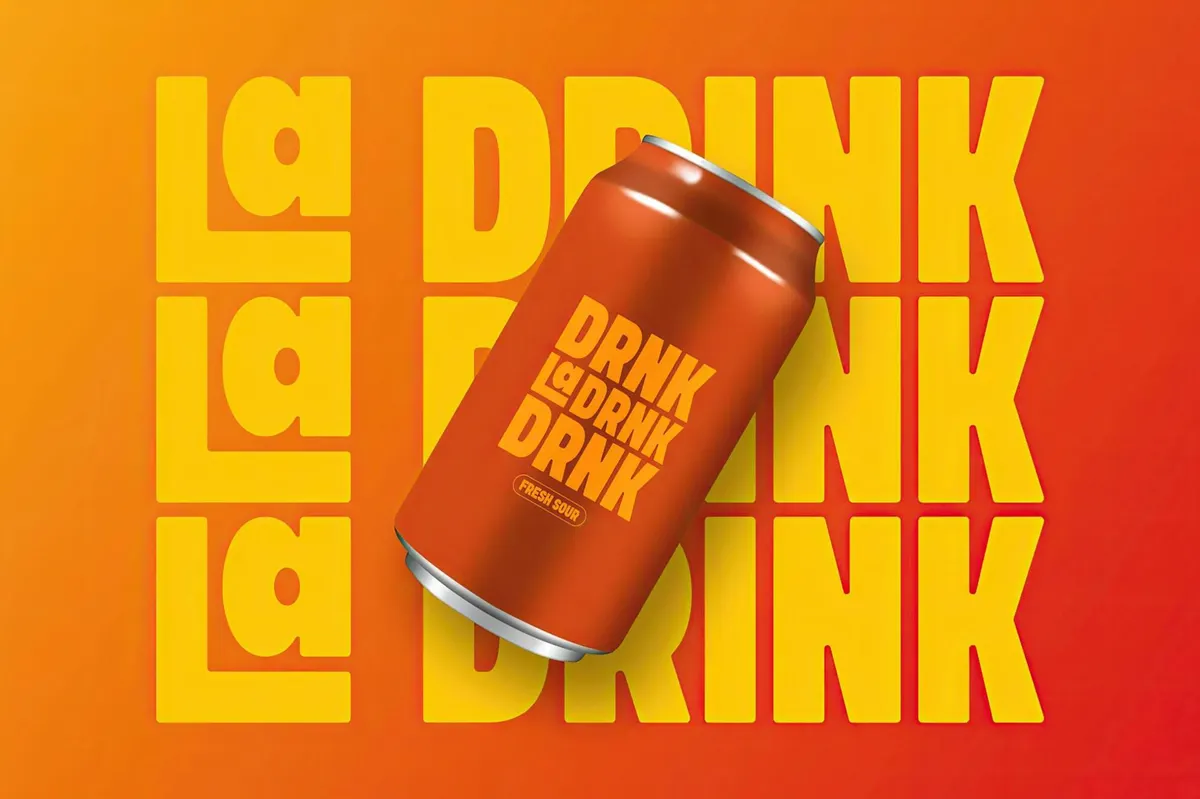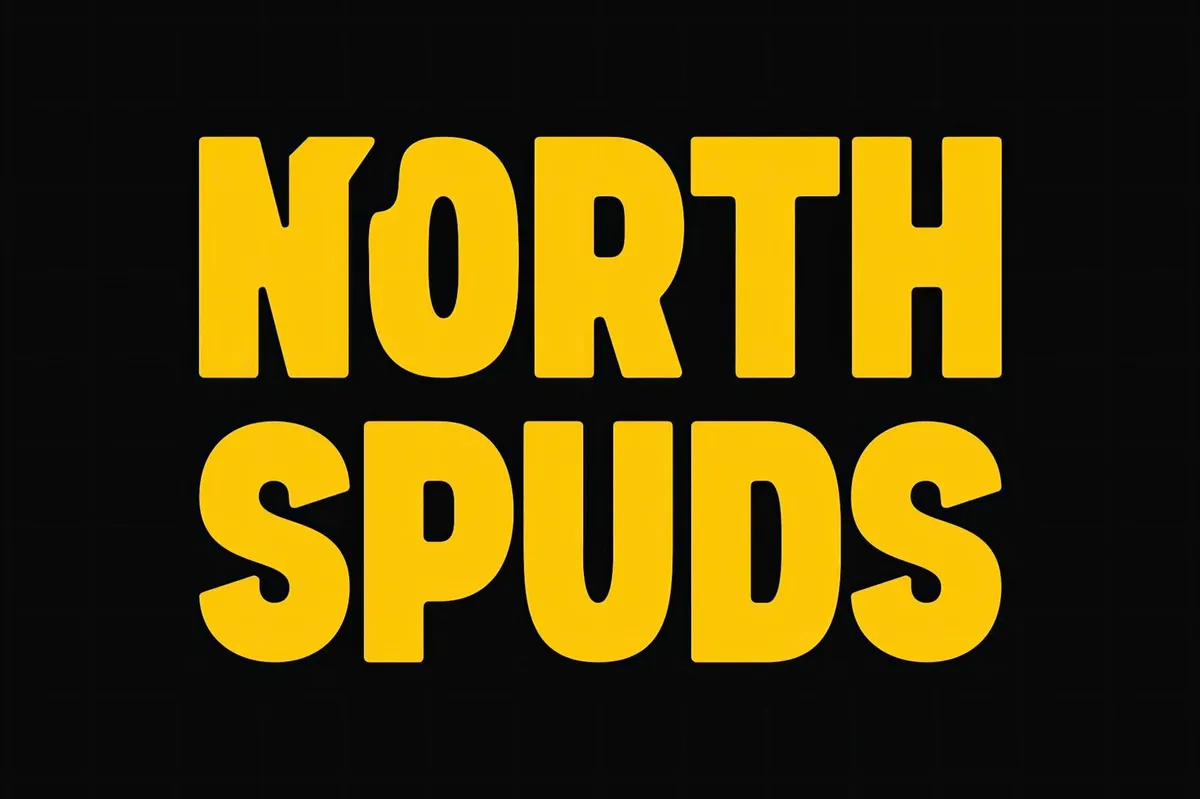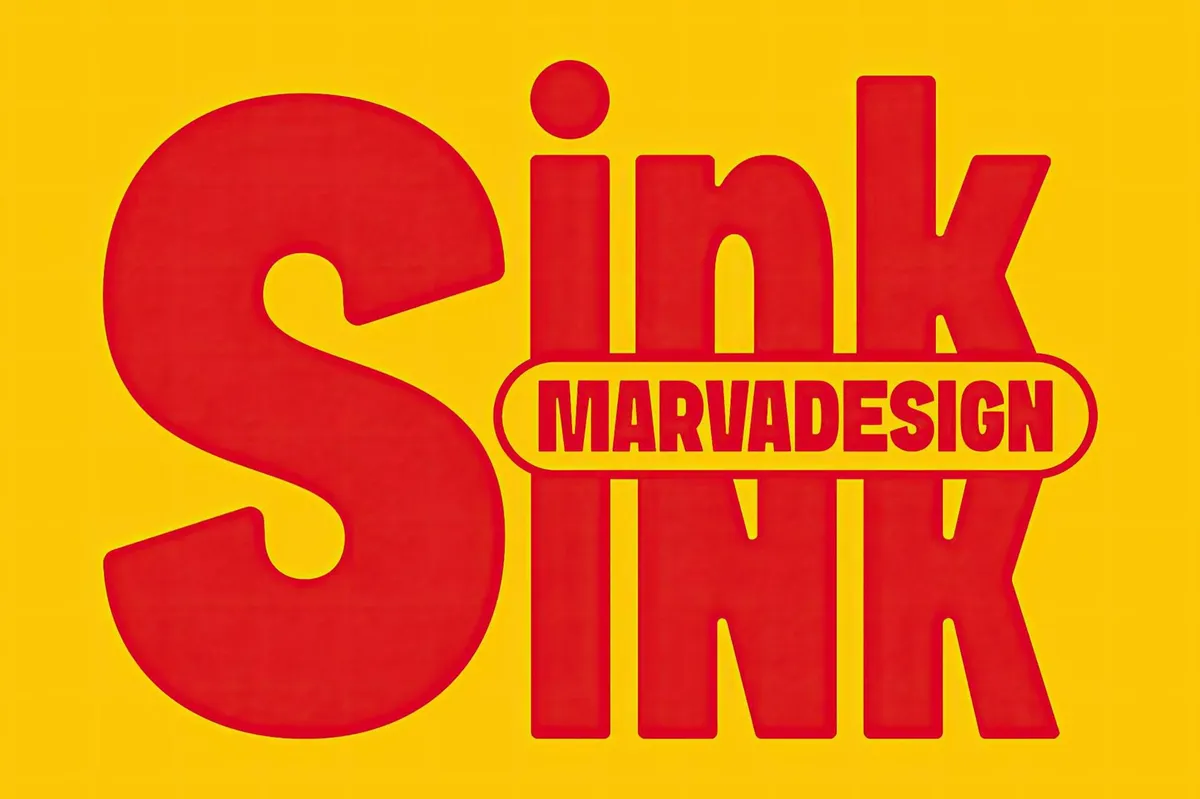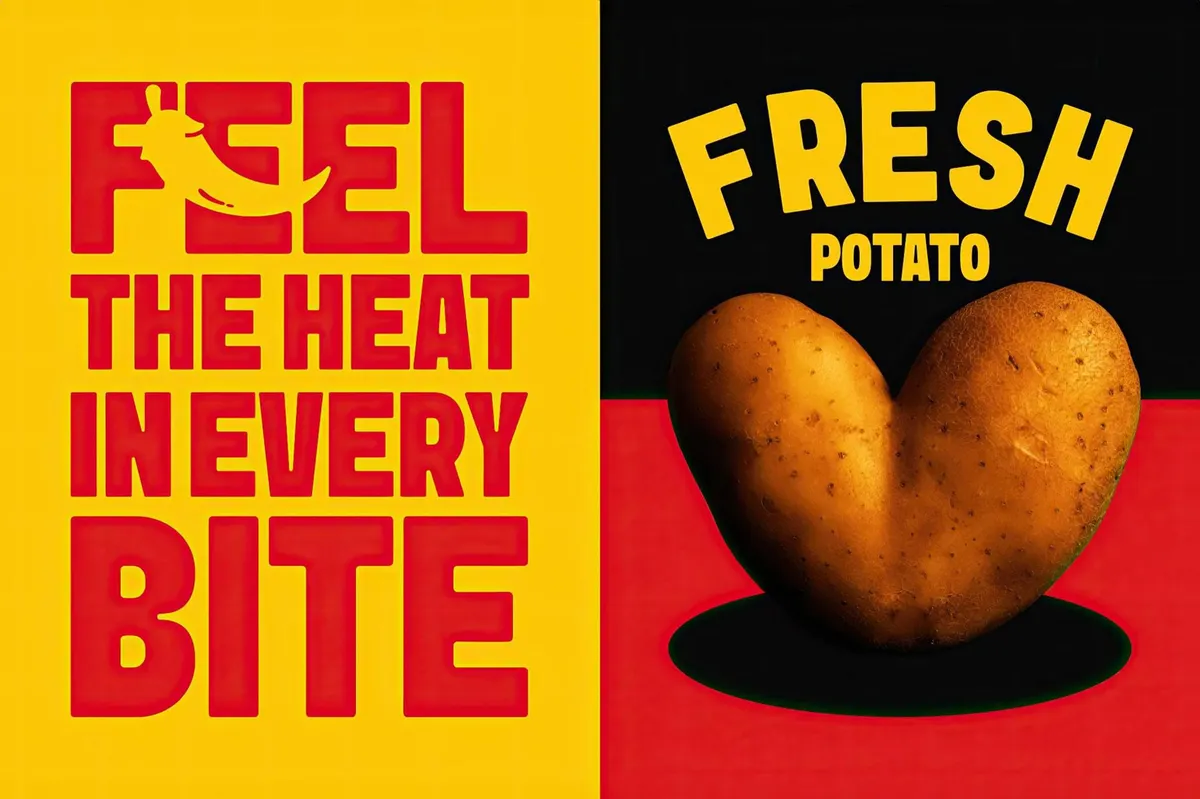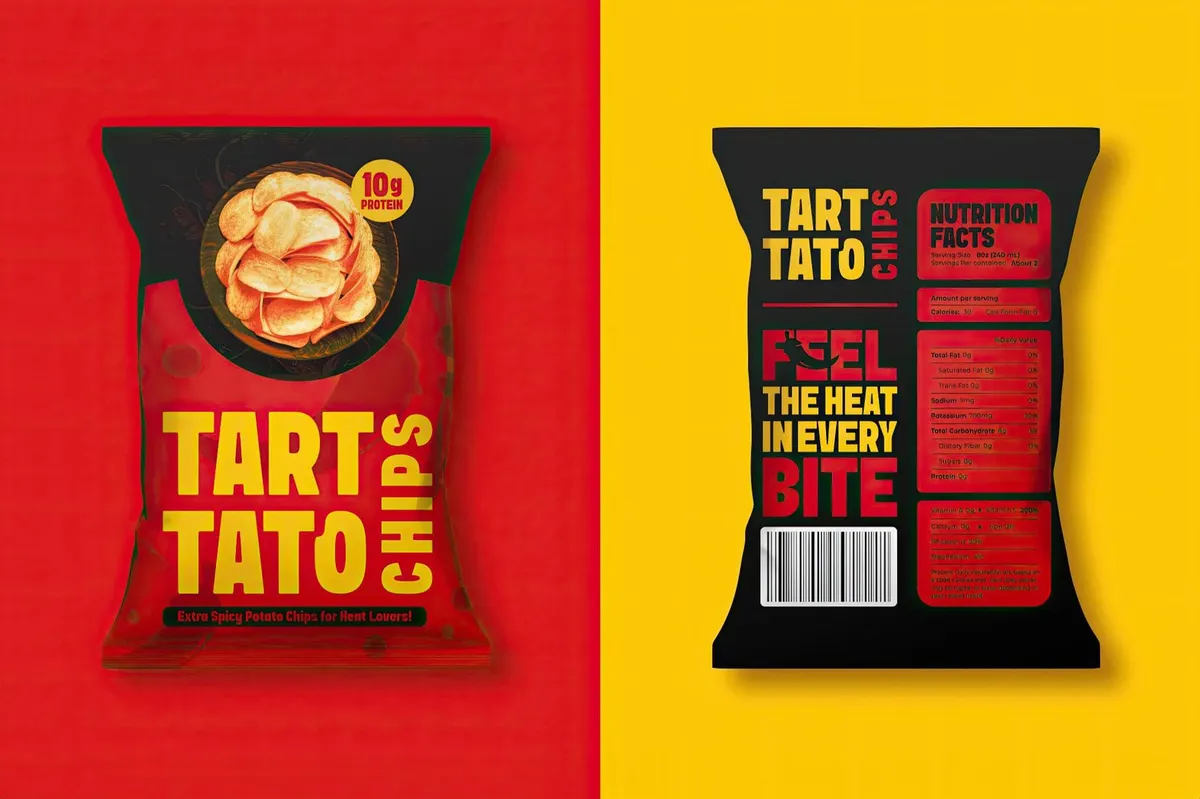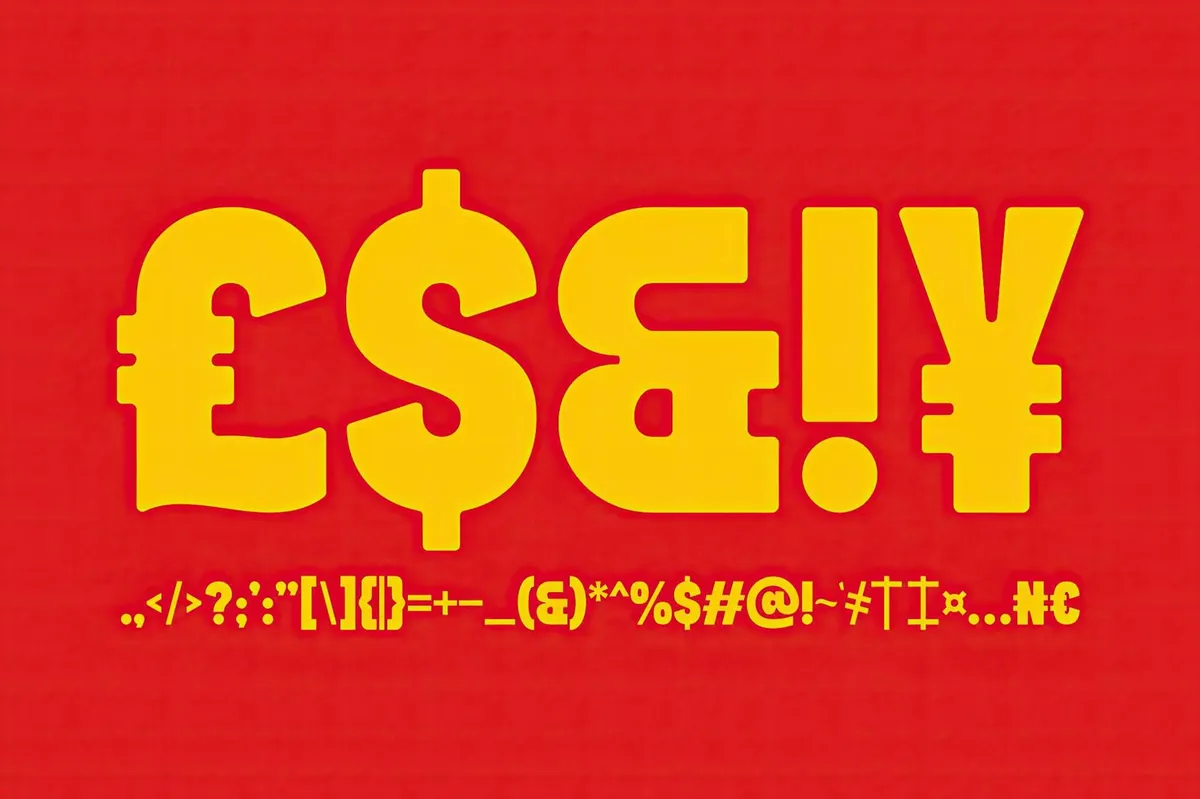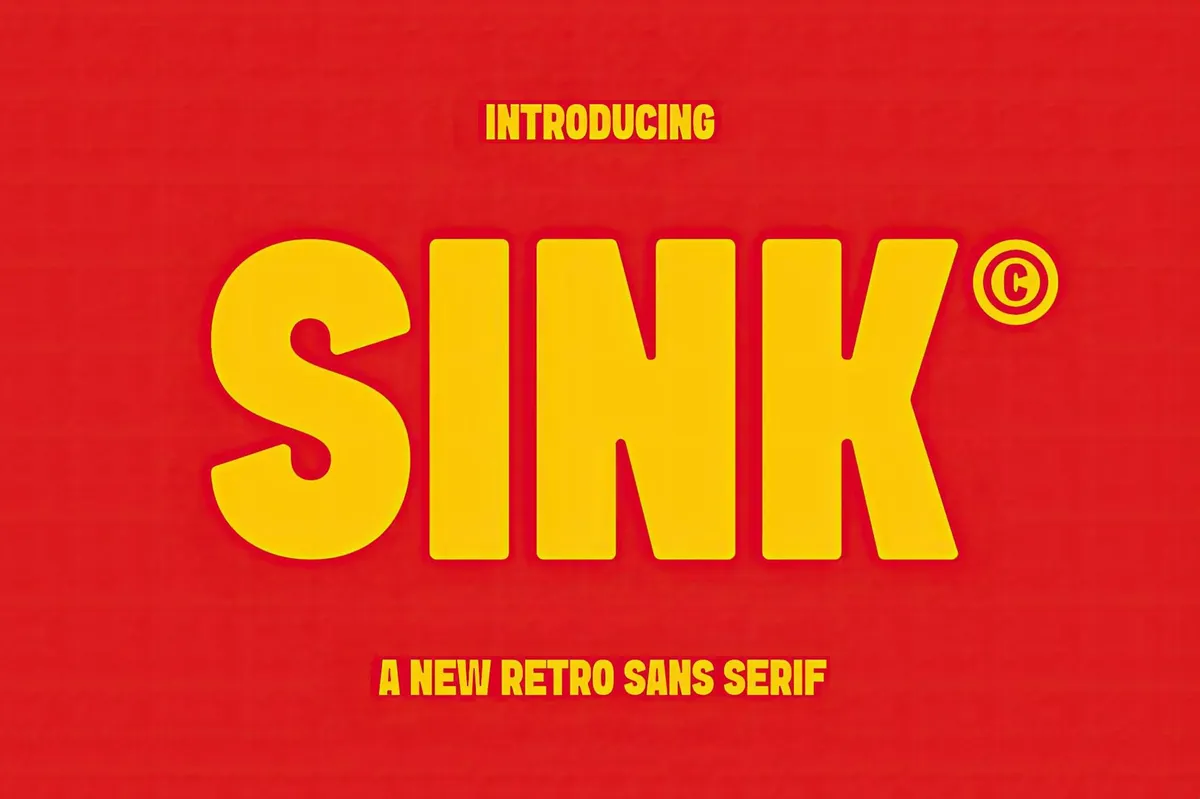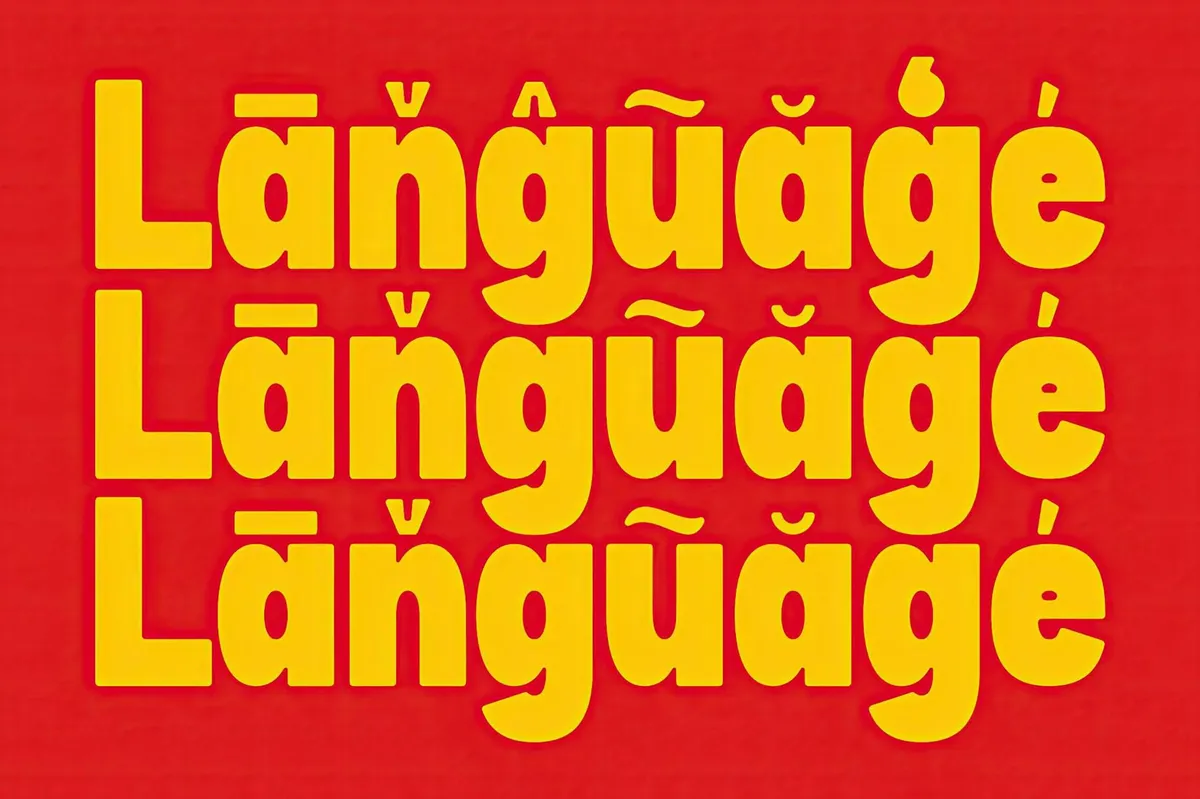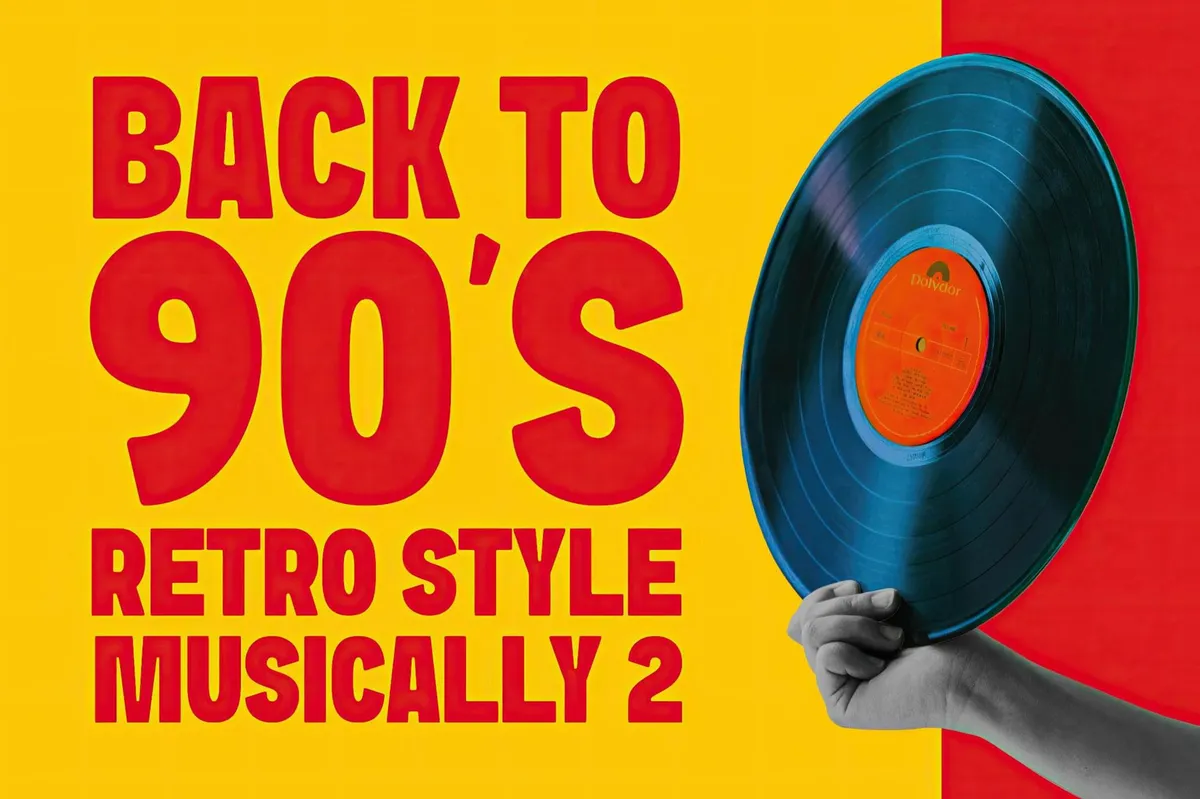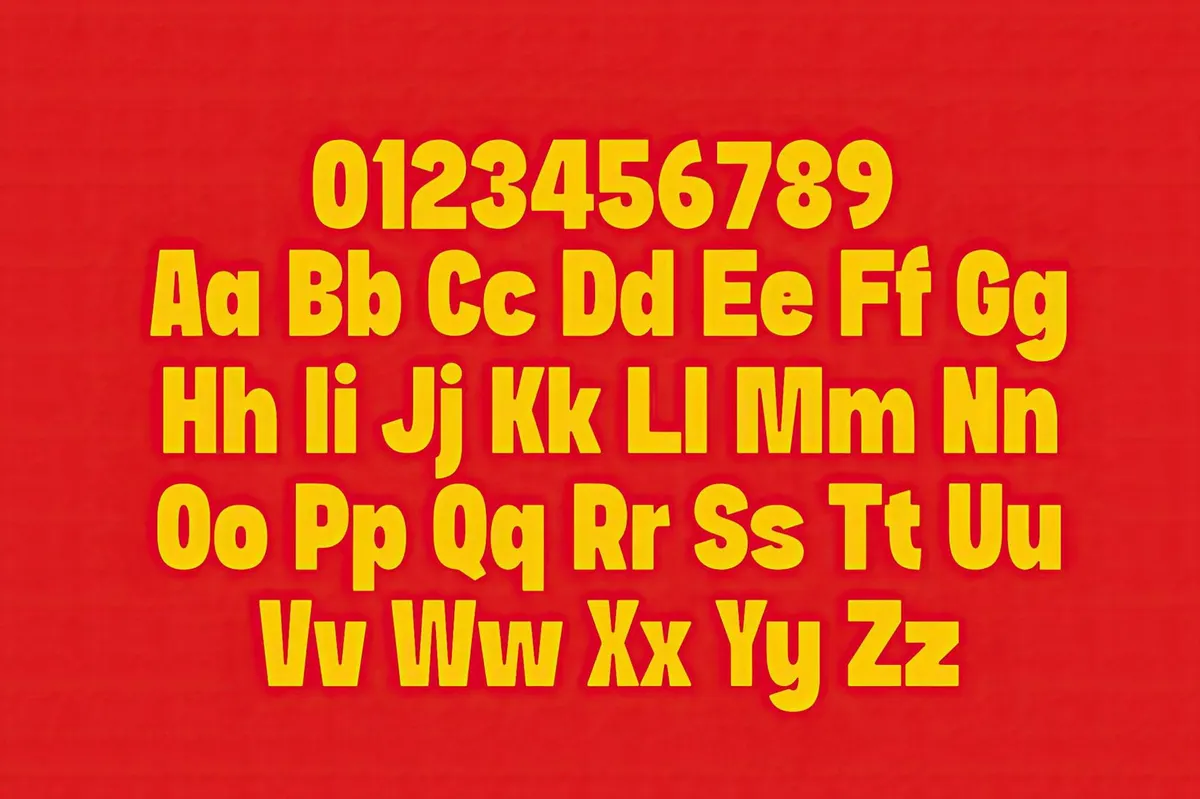
Sink — Retro Sans Serif Font
Big, bold, and impossible to ignore — SINK is the typographic equivalent of a vintage billboard buzzing at full power. Rooted in ‘70s fast-food aesthetics, oversized ad lettering, and classic packaging design, this font radiates retro confidence with a modern edge. It's packed with uppercase and lowercase letters, numerals, punctuation, and multilingual support, so you will find it a perfect fit for branding, posters, and all other kinds of bold statements.